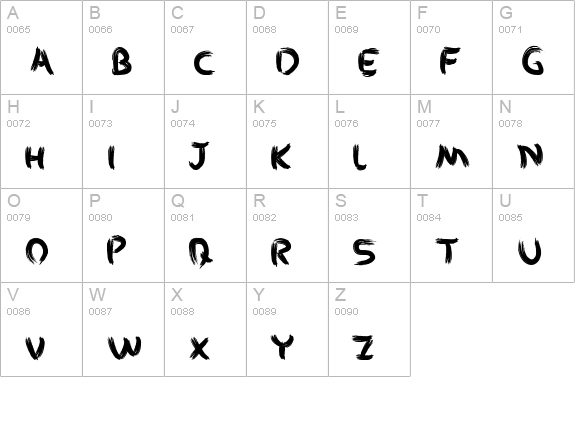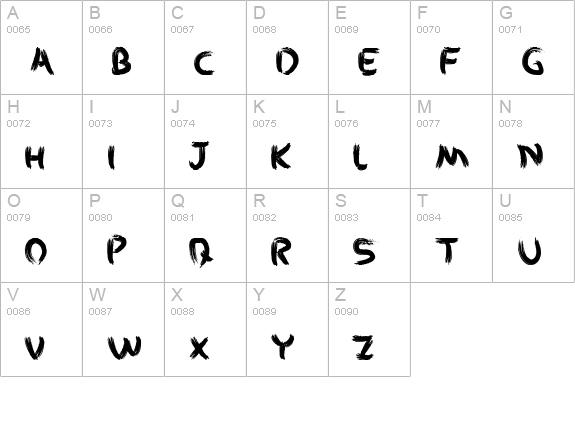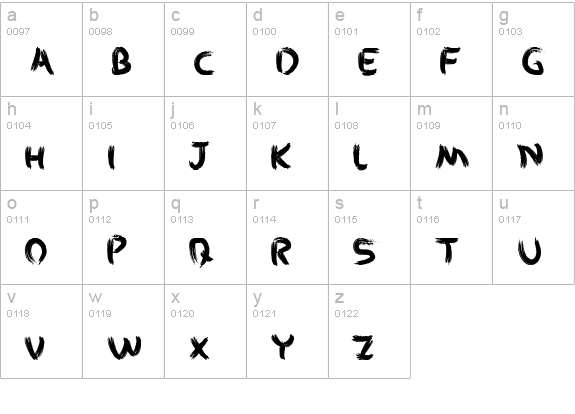
Overcome - LJ- Design Studios Grunge Font Details
Overcome - LJ- Design Studios Grunge font is a captivating and edgy typeface that exudes an aura of rebelliousness and raw energy. With its distressed and weathered appearance, this font perfectly captures the essence of the grunge movement, making it an ideal choice for projects that require a gritty and alternative aesthetic. The letterforms of Overcome are characterized by their irregular shapes, jagged edges, and rough textures, giving the font a uniquely handmade feel. Each character is meticulously crafted to evoke a sense of imperfection and chaos, adding a touch of authenticity to your designs. This versatile font is suitable for a wide range of creative projects, including posters, album covers, logos, and apparel designs. It injects an element of dynamism and attitude into any composition, instantly grabbing attention and leaving a lasting impression. And the best part? Overcome - LJ- Design Studios Grunge font is free! Yes, you read that right. This incredible font is freely available to download at FontsMarket.com. Whether you're a professional designer or a hobbyist, you can now add this exceptional font to your collection without breaking the bank. So why wait? Give your designs a rebellious edge and unleash your creativity with Overcome - LJ- Design Studios Grunge font. Download it for free today at FontsMarket.com and let your imagination run wild.